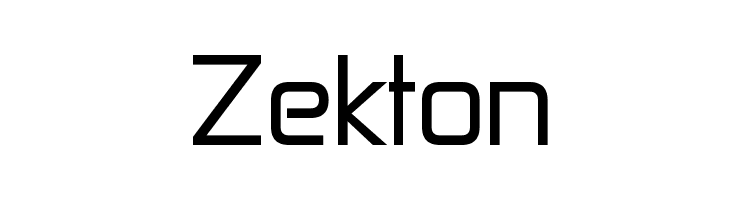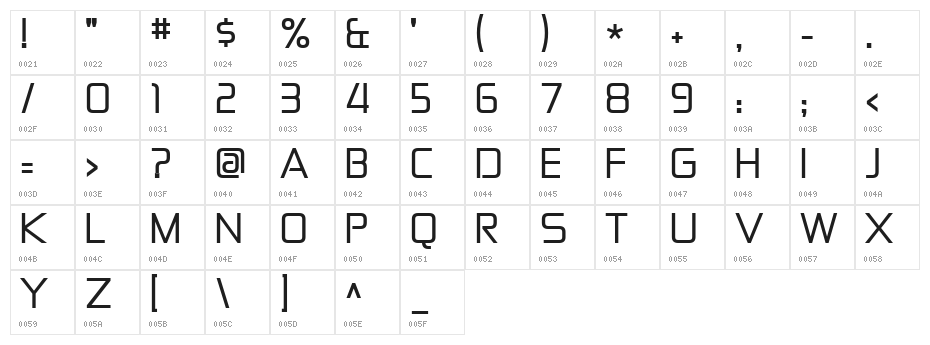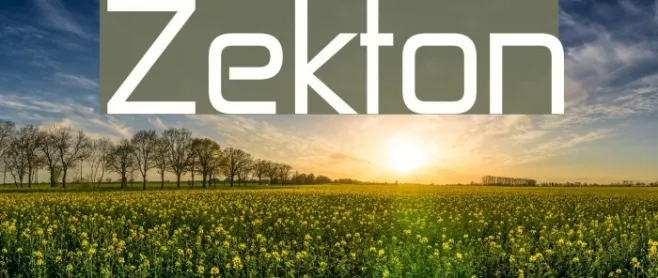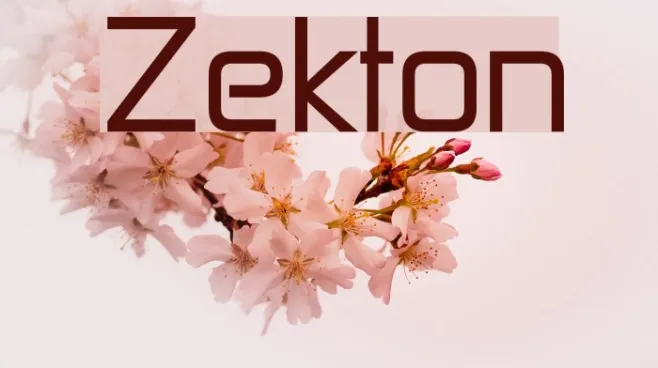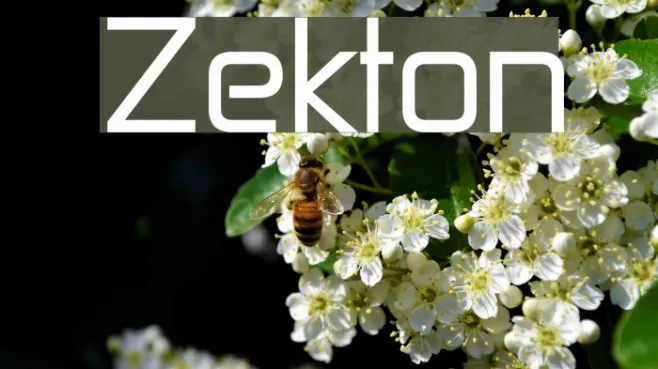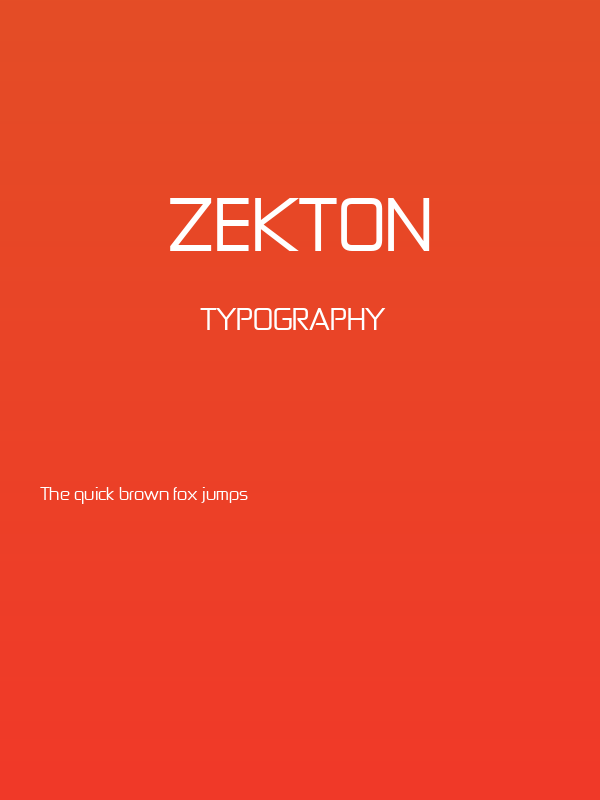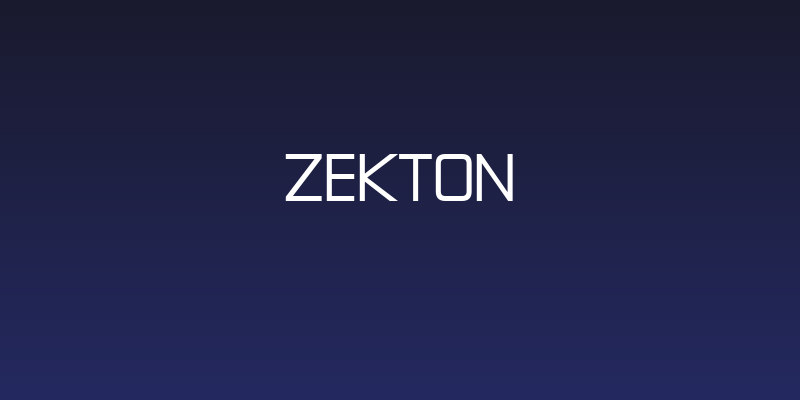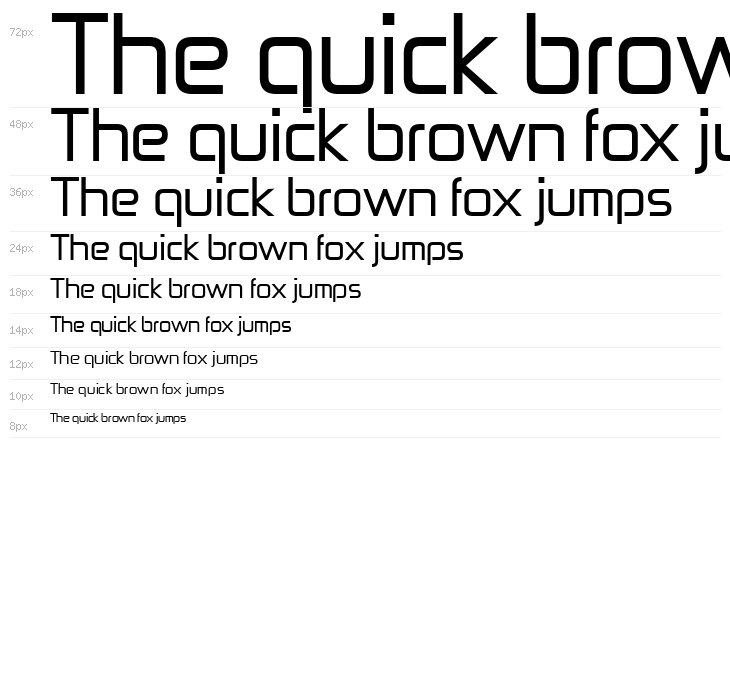
Zekton Font
Zekton Description
This font features a modern, geometric sans-serif design with clean, straight lines and a slightly condensed appearance. The characters are uniform in height, providing a consistent and balanced look. The uppercase letters are bold and impactful, while the lowercase letters maintain a smooth and rounded form. The numerals are clear and easily distinguishable, making them suitable for various applications. Special characters are designed with the same geometric precision, ensuring a cohesive overall style. The font's simplicity and clarity make it versatile for both digital and print media.
| Use Case | Headlines, Logos, Digital Interfaces |
| Proposed Projects | Ideal for technology branding, modern web design, user interfaces, and digital marketing materials. |